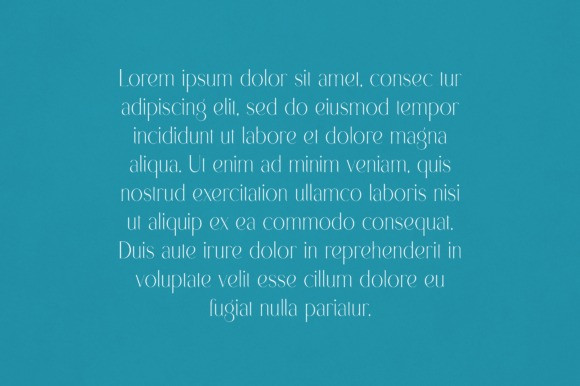
Bilva Font
Bilva Font is an elegant and versatile font that will make your typography truly unique! It will enchant every logo, branding, headline, or plain text!